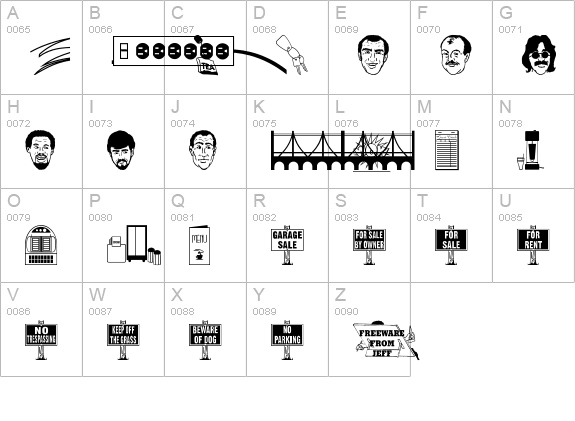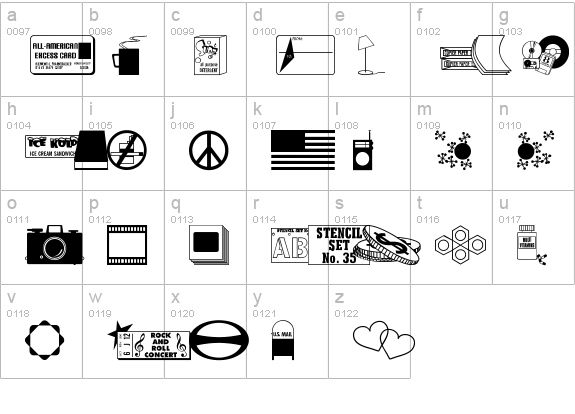
Another Dingbat Font JL Font Details
Another Dingbat Font JL is a whimsical and creative font featuring a unique collection of dingbat characters perfect for adding a touch of fun and charm to your designs. With a playful and quirky style, this font is sure to catch the eye and bring a sense of lightheartedness to any project. What makes Another Dingbat Font JL even more appealing is that it is available for free download at FontsMarket.com. This means you can easily access this delightful font and start incorporating its charming characters into your designs without any cost. Whether you're looking to add a bit of personality to a poster, invitation, or social media graphic, Another Dingbat Font JL offers a wide range of creative possibilities that are sure to delight both you and your audience. Download this font today and let your imagination run wild with its delightful dingbat characters!